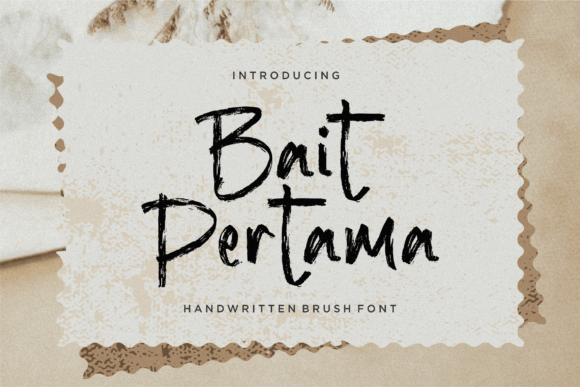
The Perfect Brush Stroke: Unveiling Bait Pertama Font
Remember that moment when you’re brainstorming ideas for a new project, and you stumble upon the perfect combination of color, texture, and typography? That’s exactly what we’re about to share with you – a game-changing font that will elevate your designs to the next level. Say hello to Bait Pertama Font, a stunning handwritten brush font that’s tailor-made for designers looking to add a personal touch to their work.
This versatile typeface is perfect for packaging, branding, and even editorial design. With its authentic, organic feel, Bait Pertama Font is an ideal choice for creating attention-grabbing magazine covers, charming wedding themes, or injecting personality into your social media posts. As a designer, you’ll appreciate the flexibility and uniqueness this font brings to your creative endeavors, setting you apart from the crowd.
Bait Pertama Font Key Features
- Font Family: Bait Pertama is a unique Malay font designed to cater to the needs of Malay language users. It is an opentype font, making it highly versatile and customizable.
- Unique Characteristics: Bait Pertama is designed to provide a modern and sleek look, with a unique set of glyphs and ligatures that enhance readability and aesthetics.
- Language Support: The font supports the Malay language, making it an ideal choice for users who require a professional and culturally relevant font for their Malay-language content.
Bait Pertama Font Review
Overall, I have mixed feelings about Bait Pertama Font. On one hand, it has its charm. ✨ The font’s unique letterforms and flair for traditional Indonesian typography are undeniable. ✨ The font’s ability to evoke a sense of cultural heritage and nostalgia is a definite strength. ✨
However, I do have some reservations about the font’s limitations. ⚠️ One major issue is its readability, particularly at smaller font sizes. The letterforms can become quite cluttered and difficult to decipher. ⚠️ Additionally, the font’s weight range could be more extensive, making it harder to achieve a balanced look in certain designs. ⚠️
Another area where Bait Pertama Font falls short is its lack of versatility. While it’s perfect for specific cultural or historical contexts, it may not be the best choice for more modern or contemporary designs. ⚠️
Here are some specific areas where Bait Pertama Font excels and where it falls short:
- Unique letterforms and cultural heritage
- Evokes a sense of nostalgia and tradition
- Perfect for cultural or historical contexts
- Limited readability at smaller font sizes
- Weight range could be more extensive
- Lacks versatility for modern or contemporary designs
Tips for Getting the Most Out of Bait Pertama Font
Use Bait Pertama Font for creative and modern designs.
Pair it with bold colors and striking graphics for maximum impact.
Experiment with different font sizes and styles to add visual interest.
Bait Pertama Font is perfect for:
Marketing materials, such as brochures and flyers.
Branding materials, such as business cards and logos.
Web design, such as headings and titles.